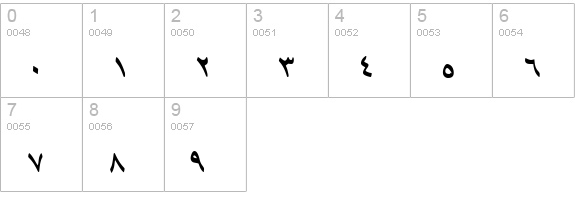
B Tehran Italic Font Details
B Tehran Italic is a distinctive, italic variant in the B typeface family \xE2\x80\x94 well suited to design and typography projects.
B Tehran Italic font is a sleek and modern typeface that exudes elegance and sophistication. With its stylish slanted design, this font is perfect for adding a touch of flair to any project. The italicized version of B Tehran font adds a sense of movement and dynamism, making it ideal for creating eye-catching headlines or emphasizing important text. Best of all, B Tehran Italic font is available for free download at FontsMarket.com. This means you can easily access this stunning font without any cost, making it a valuable addition to your font collection. Whether you're designing a website, creating promotional materials, or crafting a personal project, B Tehran Italic font is sure to elevate your design with its unique and striking appearance. Download it today and let your creativity soar with this exceptional typeface.